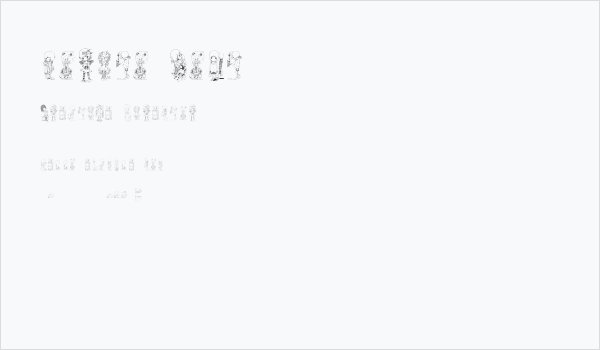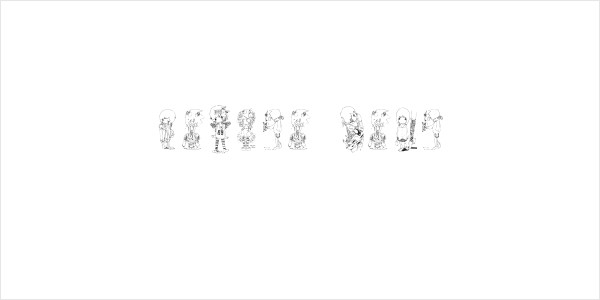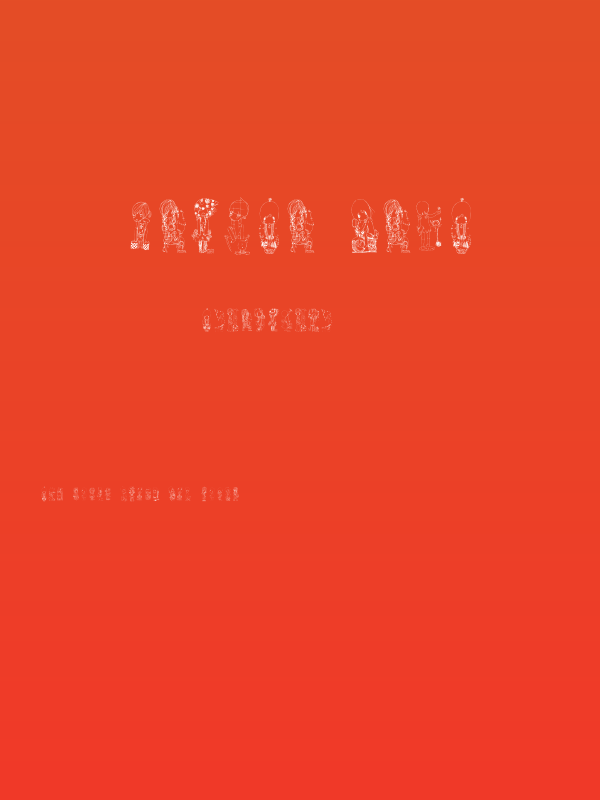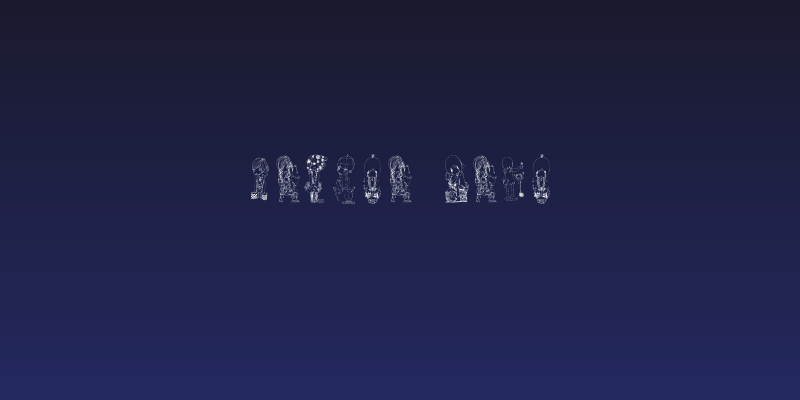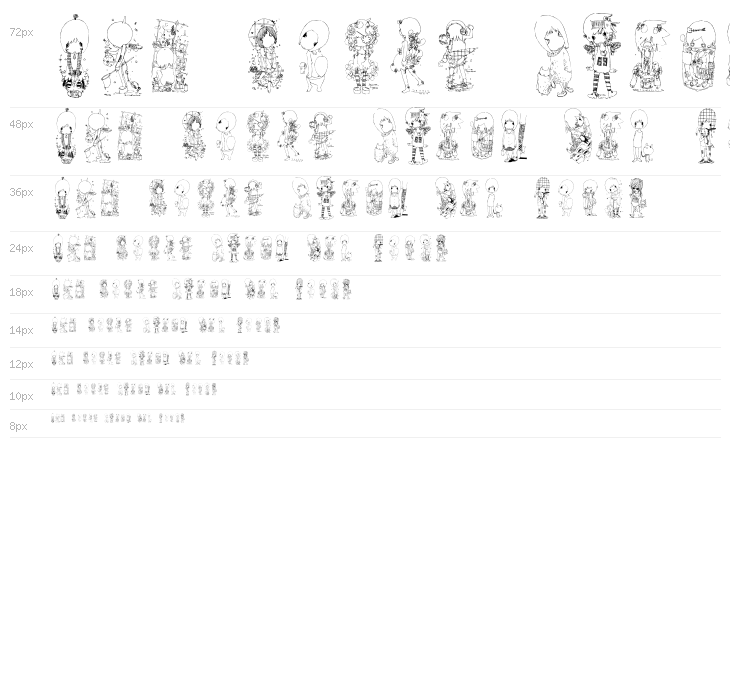
morito-font Font
Highly decorative and illustrative font where each character is represented by a unique, detailed drawing of a child-like figure in various poses and activities. The style is whimsical, playful, and hand-drawn, with intricate line work and a sketch-like quality.
Overall StyleDecorative, Whimsical, Hand-drawn
Use CaseDisplay, Posters, Children's materials, Artistic projects
Proposed ProjectsChildren's books, greeting cards, posters, creative branding, art projects.